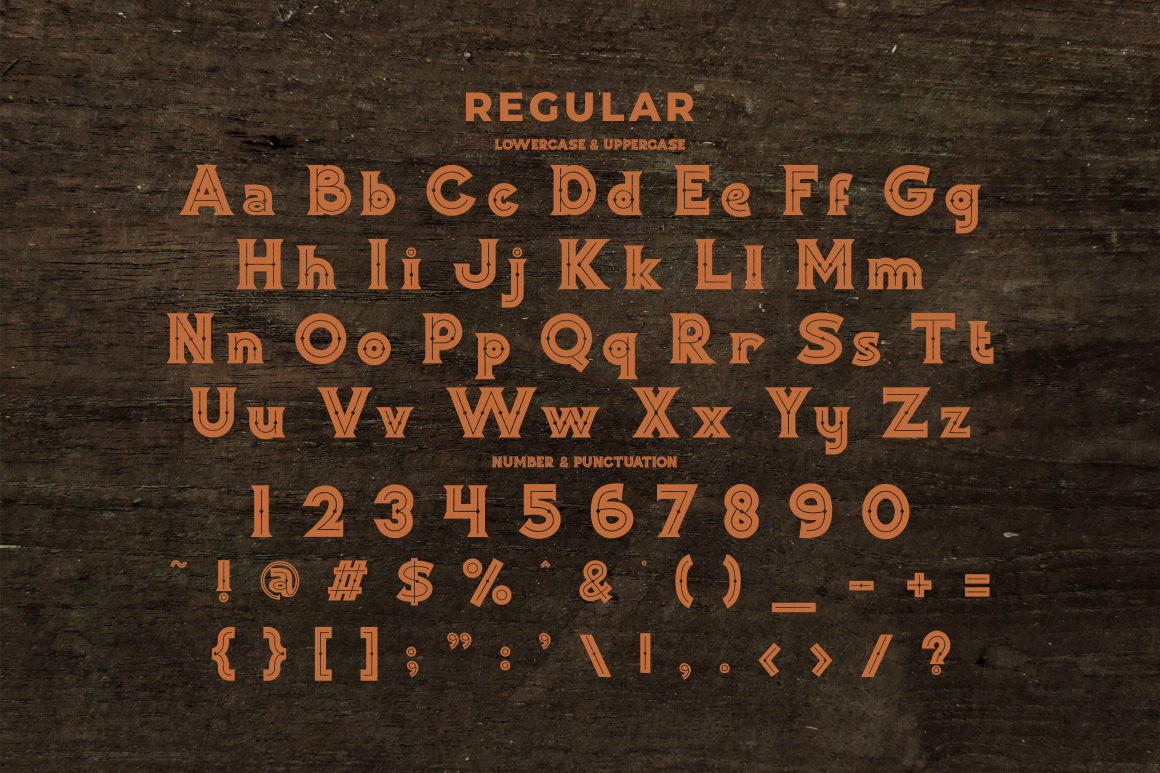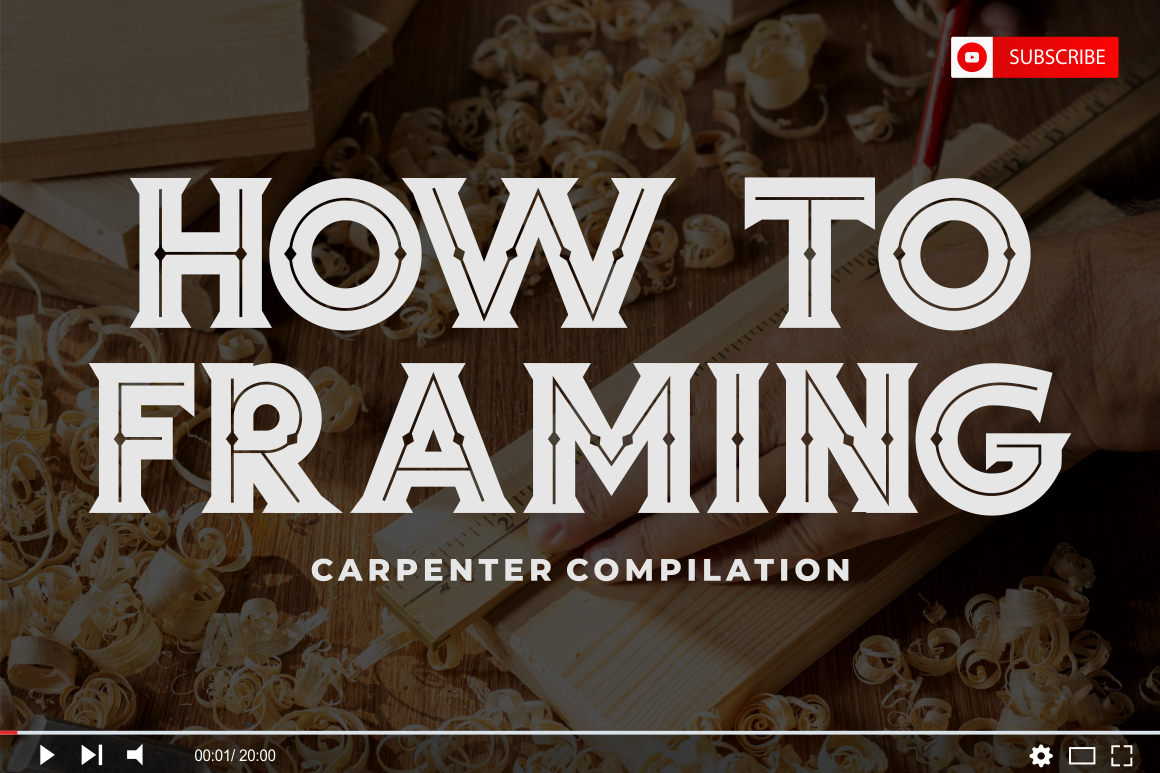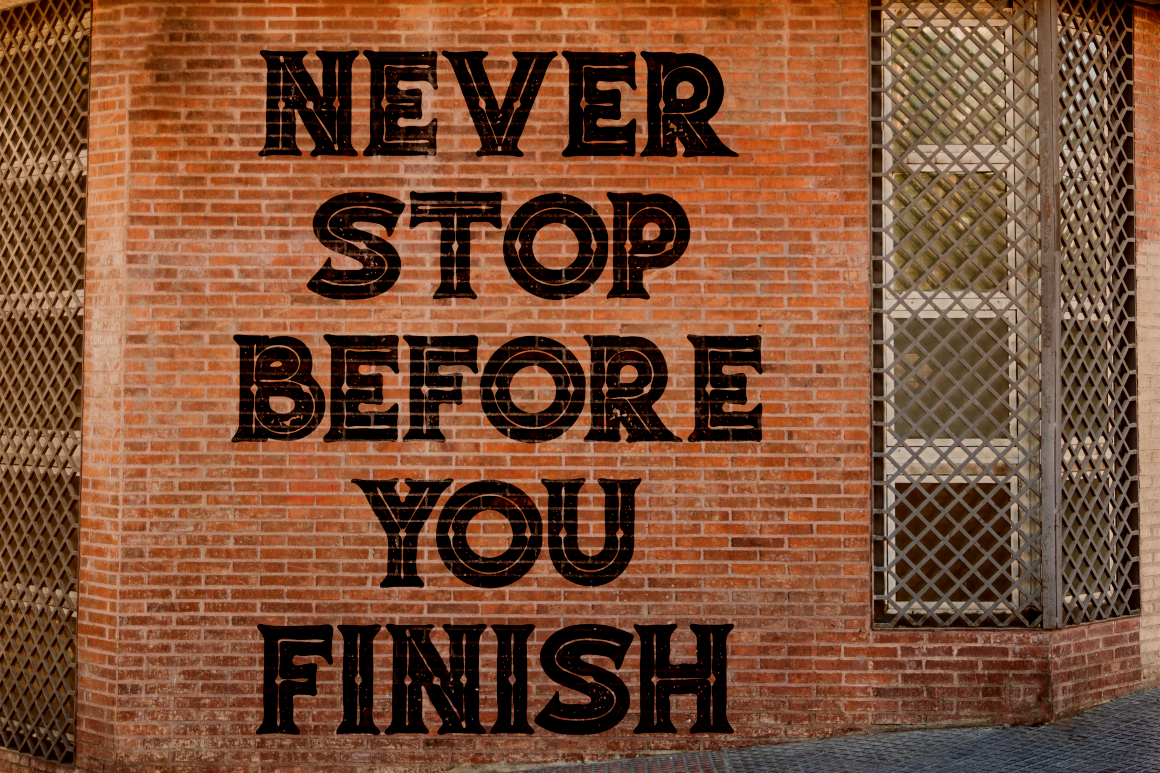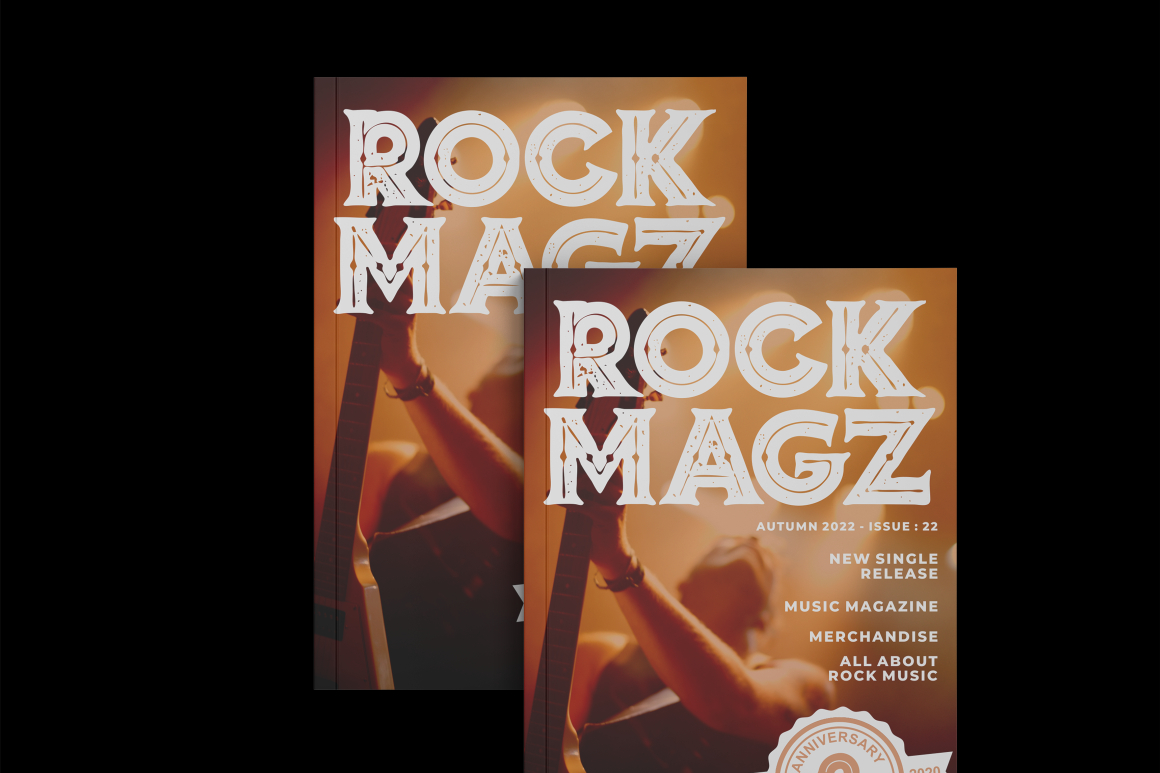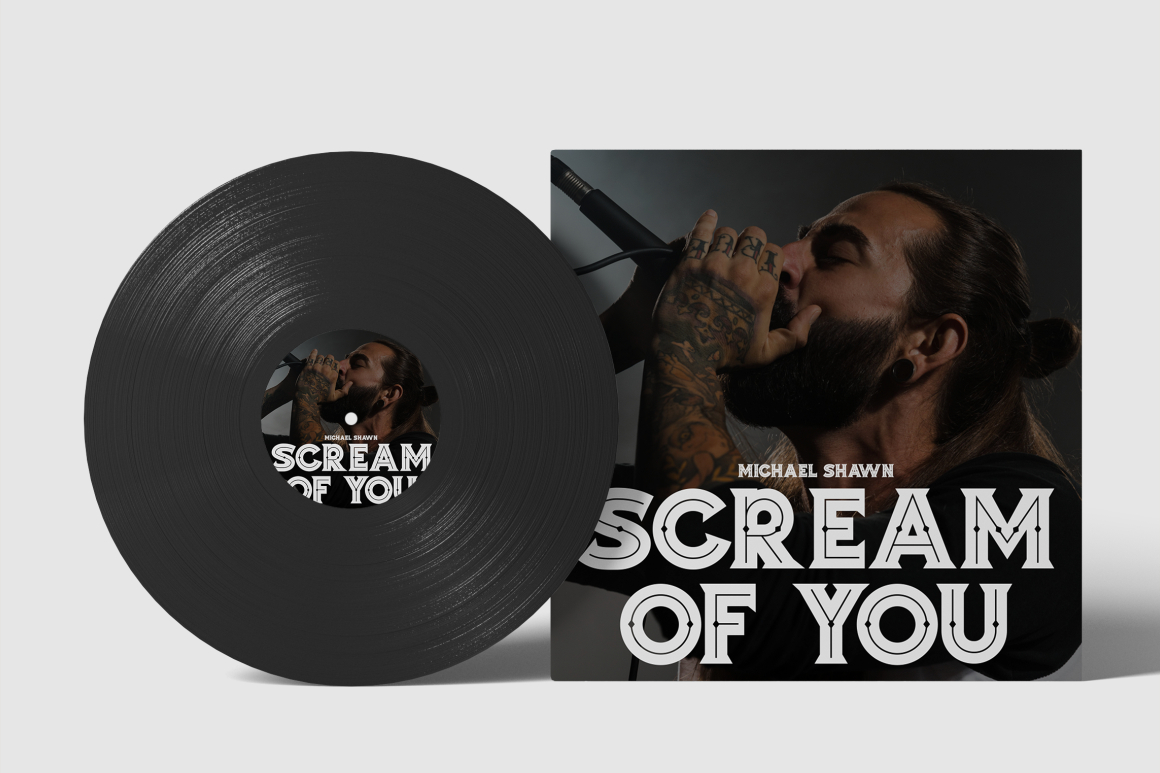
Woodshed – Decorative Serif Font
Woodshed Decorative Serif Font is a versatile typeface that can add a touch of elegance and sophistication to any project. The font features a unique design with decorative serifs, making it perfect for creating stunning headlines, logos, and branding materials.
One of the best things about Woodshed Decorative Serif Font is its versatility. The font works well for both digital and print designs, making it a great choice for a variety of projects, from websites and social media graphics to business cards and product packaging.
In addition to its elegant and sophisticated design, Woodshed Decorative Serif Font also includes a wide range of features to help you customize your designs. The font comes with uppercase and lowercase letters, numbers, punctuation, and symbols, making it easy to create unique and eye-catching designs.
Woodshed Decorative Serif Font also includes multilingual support, so you can use it for projects in different languages. Whether you’re creating designs in English, Spanish, French, or any other language, this font has you covered.
Another great feature of Woodshed Font is its ligatures. Ligatures are special characters that are created by combining two or more letters to create a more seamless and visually appealing look. This font includes a variety of ligatures that you can use to add a touch of sophistication to your designs.
Overall, Woodshed Font is a great choice for anyone looking for a versatile and elegant font that can help take their designs to the next level. With its decorative serifs, wide range of features, and multilingual support, this font is sure to become a go-to in your font library. So why wait? Download Woodshed Font today and start creating stunning designs that will leave a lasting impression.